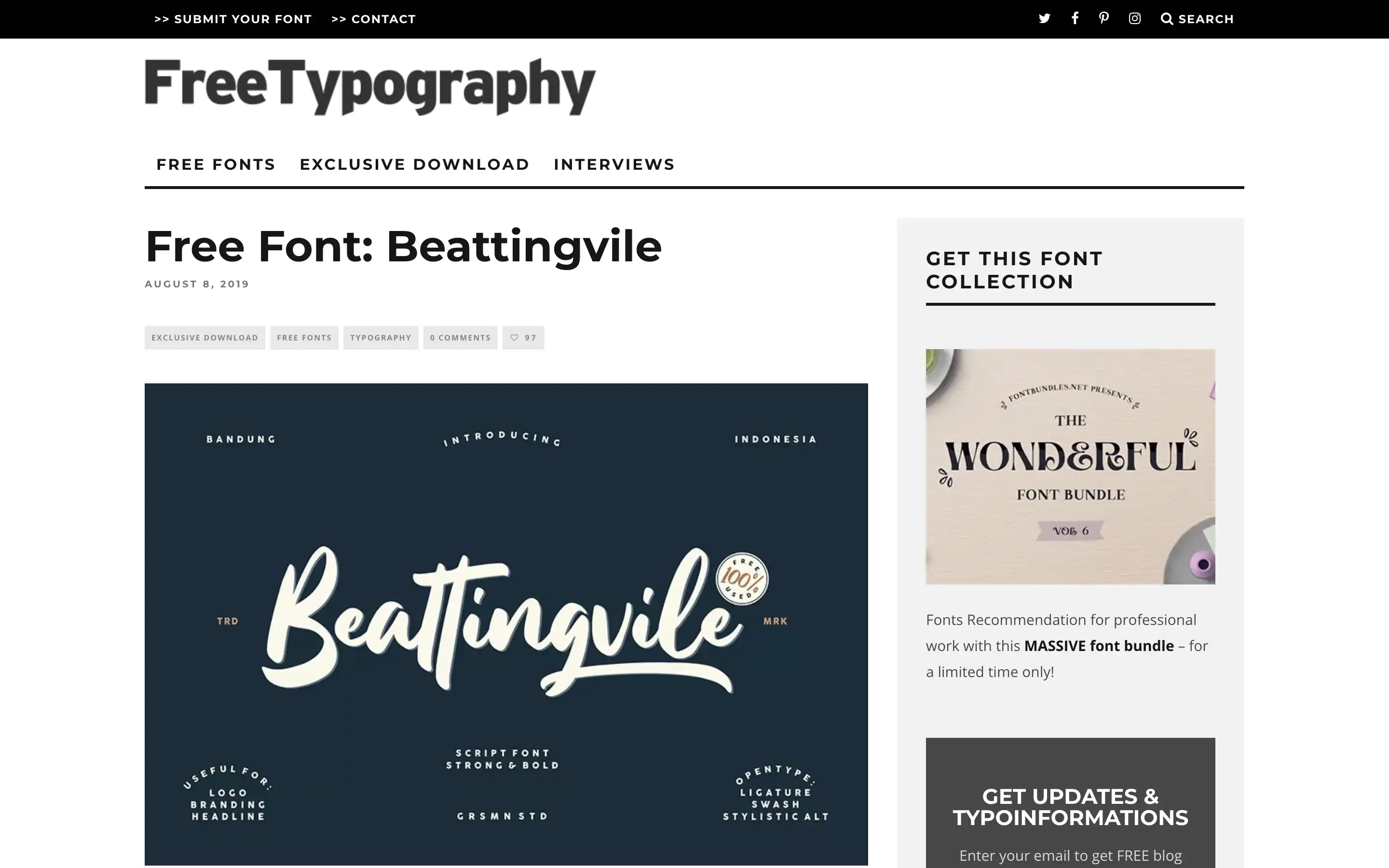
FreeTypography.com features the free font Beattingvile, created by Garisman Studio. Beattingvile is a beautiful script font with stylistic alternates, swashes, and ligatures. It supports multilingual text and is suitable for branding, labels, logos, posters, apparel, and other design work.
The free Beattingvile script font by Garisman Studio, supporting multilingual text for various design applications and projects.